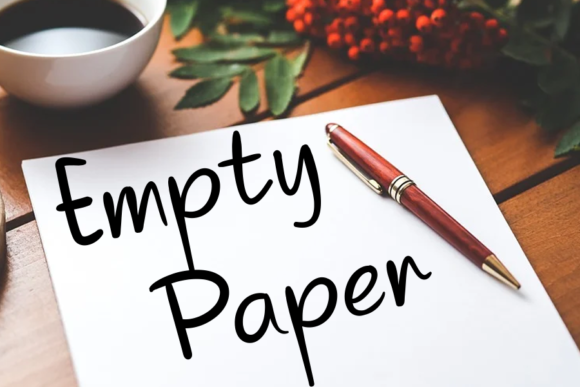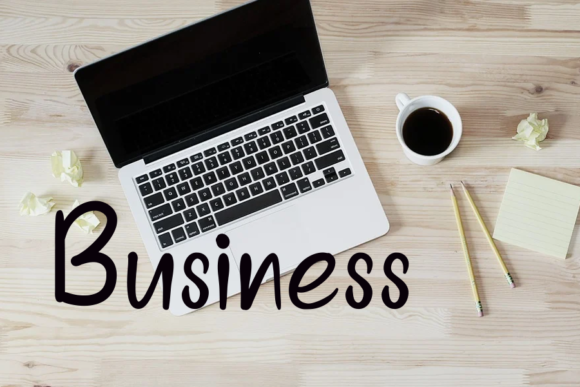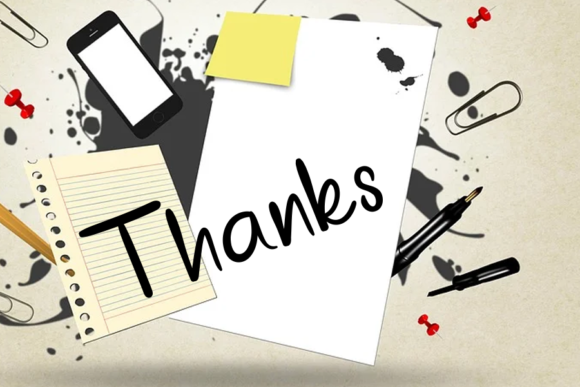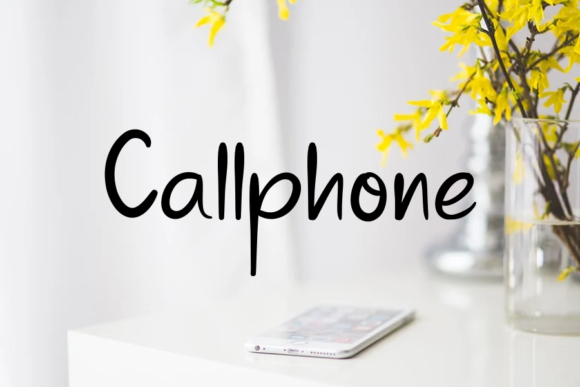
Workplace Font
About Workplace Font
Workplace is a beautiful and adaptable script font. It has a simple, elegant and modern look that can be used for logos, branding, invitations, stationery, wedding designs, social media posts, and much more!